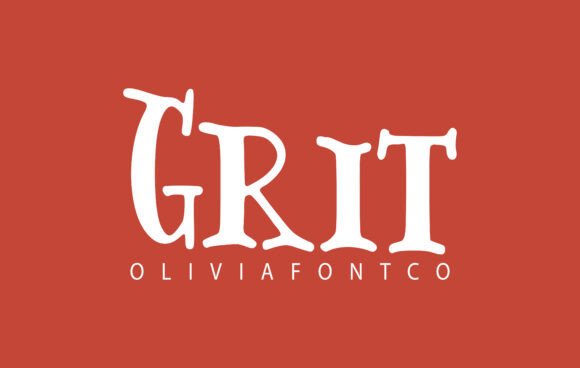
Grit Font: The Ultimate Handwritten Font for Creative Expression
Are you looking for a font that can add a touch of romance and elegance to your creative projects? Look no further than the Grit Font, an authentic handwritten font that is sure to become your new favorite. Designed with a romantic touch, this font is perfect for taking your ideas to the next level.
What is Grit Font?
Grit Font is a carefully crafted handwritten font that exudes a sense of sophistication and charm. Its unique and authentic design makes it stand out from other fonts, making it perfect for a wide range of creative projects. Whether you’re looking to create stunning magazine headlines, eye-catching social media graphics, or beautiful wedding invitations, Grit Font is the perfect choice.
Key Features of Grit Font
So, what makes Grit Font so special? Here are just a few of its key features:
- Legibility: Grit Font is designed to be highly legible, making it perfect for use as both title and body text.
- Romantic Touch: The font’s romantic touch adds a touch of elegance and sophistication to any project.
- Authentic Handwritten Design: Grit Font is carefully crafted to mimic the look and feel of handwritten text, giving it a unique and personal touch.
- Versatility: This font is perfect for a wide range of creative projects, from magazine headlines and social media graphics to wedding invitations and more.
Uses for Grit Font
So, what can you use Grit Font for? The possibilities are endless! Here are just a few ideas to get you started:
- Magazine Headlines: Use Grit Font to create stunning magazine headlines that grab attention and draw readers in.
- Social Media Graphics: Add a touch of elegance and sophistication to your social media graphics with Grit Font.
- Wedding Invitations: Make your wedding invitations truly special with Grit Font’s romantic and elegant design.
- Branding: Use Grit Font to create a unique and memorable brand identity that sets you apart from the competition.
- Cards and Stationery: Add a personal touch to your cards and stationery with Grit Font’s beautiful handwritten design.
Why Choose Grit Font?
So, why should you choose Grit Font for your creative projects? Here are just a few reasons:
- Unique Design: Grit Font’s unique and authentic design makes it stand out from other fonts.
- Elegance and Sophistication: The font’s romantic touch adds a touch of elegance and sophistication to any project.
- Legibility: Grit Font is highly legible, making it perfect for use as both title and body text.
- Versatility: This font is perfect for a wide range of creative projects.
In conclusion, Grit Font is a beautiful and versatile handwritten font that is perfect for a wide range of creative projects. Its unique and authentic design, romantic touch, and high legibility make it a true favorite among designers. Whether you’re looking to create stunning magazine headlines, eye-catching social media graphics, or beautiful wedding invitations, Grit Font is the perfect choice. So why wait? Download Grit Font today and take your creative ideas to the next level!